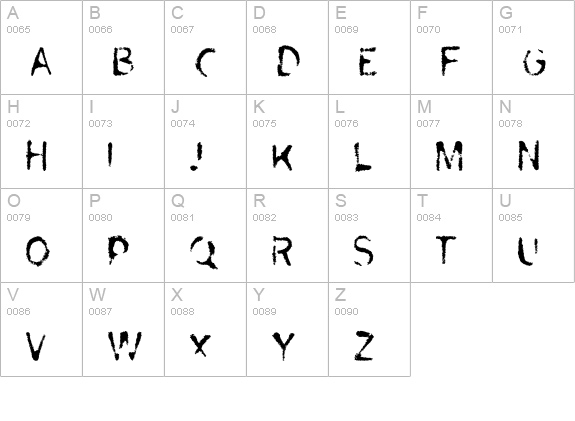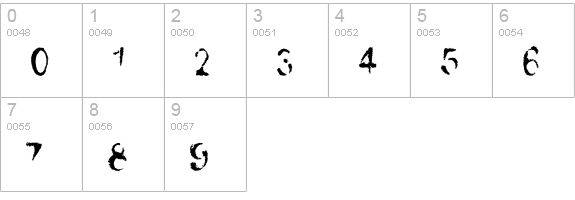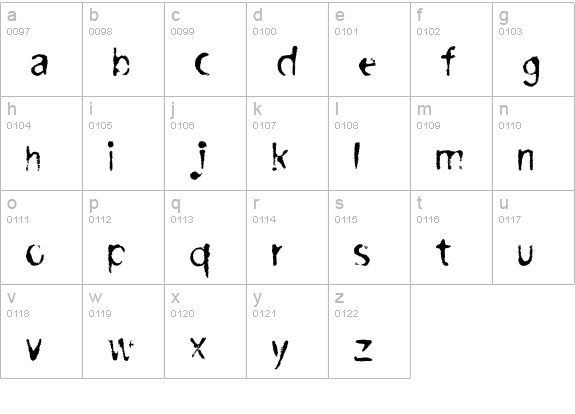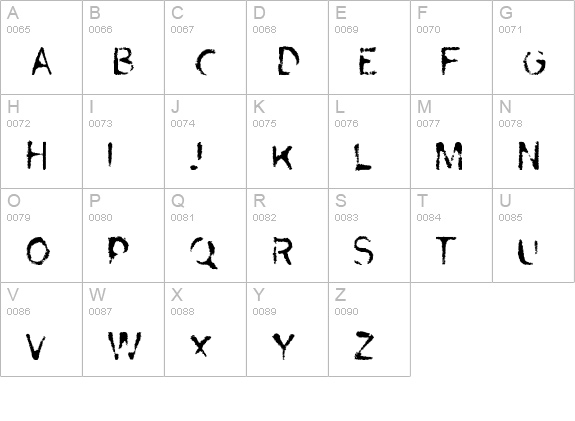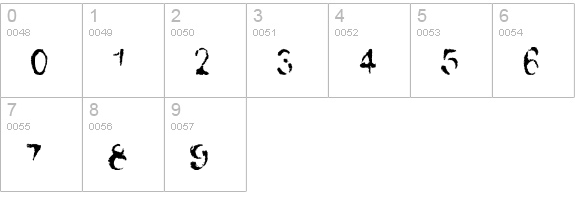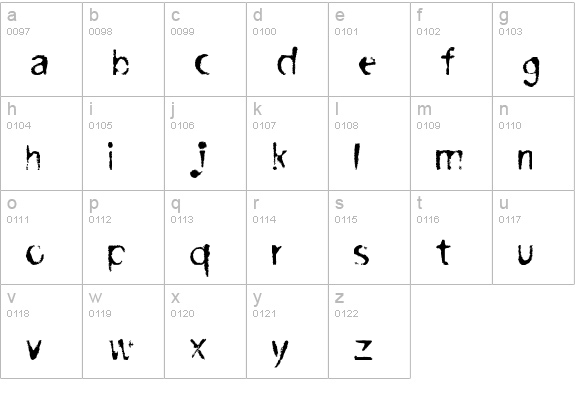
Surface-Rough Font Details
Surface-Rough font is a unique and eye-catching typeface that adds a touch of ruggedness and texture to your designs. Perfect for creating bold headlines, posters, and branding materials, this font exudes a sense of raw energy and authenticity. The rough edges and uneven strokes give it a handcrafted feel that is both modern and edgy. Best of all, Surface-Rough font is available for free download at FontsMarket.com. Whether you're a designer looking to add a gritty edge to your projects or a creative looking to make a statement, this font is sure to make a lasting impression. Download it today and unleash your creativity with Surface-Rough font.